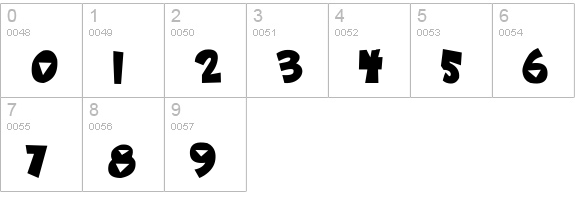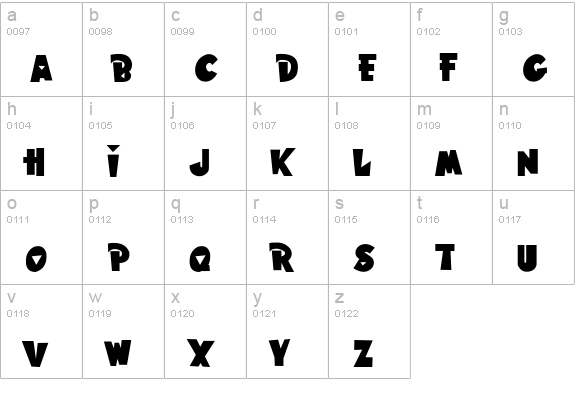
Hawaiian Punk Font Details
Introducing Hawaiian Punk, a rebellious and vibrant font that combines the raw energy of punk rock with the laid-back spirit of the Hawaiian islands. This one-of-a-kind typeface is perfect for those who dare to defy convention and embrace their individuality. Hawaiian Punk is characterized by its bold and edgy letterforms, inspired by the iconic aesthetics of punk culture. Each letter is meticulously handcrafted to exude a sense of rebellion and attitude, making it the ideal choice for album covers, concert posters, tattoo designs, and more. What sets Hawaiian Punk apart from other fonts is not only its unique style, but also its versatility. It seamlessly blends the boldness of punk with the relaxed vibes of Hawaiian culture, creating a visual language that is both striking and inviting. Whether you want to make a statement or simply add a touch of personality to your designs, this font has got you covered. But here's the best part – Hawaiian Punk is absolutely free! That's right, you can freely download this font at FontsMarket.com. We believe that creativity should know no bounds, and by offering Hawaiian Punk for free, we aim to empower designers and artists to explore their artistic visions without any limitations. So, if you're ready to unleash your inner rebel and infuse your designs with the bold spirit of punk and the tropical allure of Hawaii, look no further than Hawaiian Punk. Download it now from FontsMarket.com and let your creativity run wild.